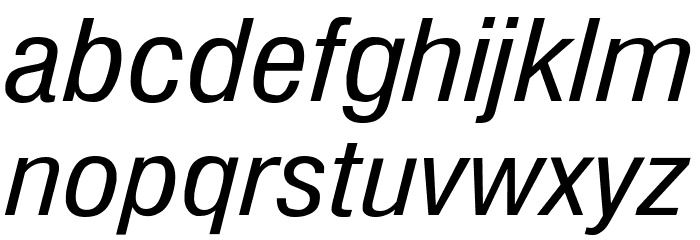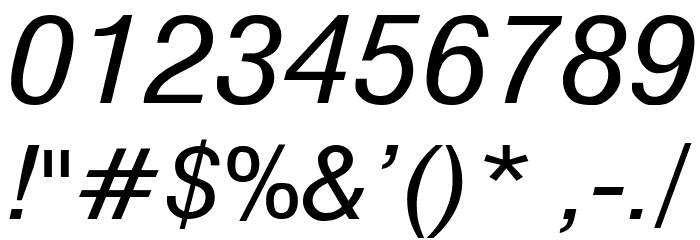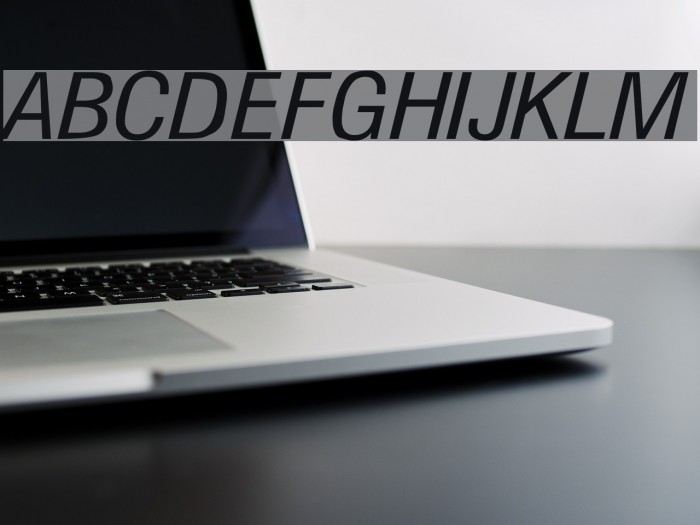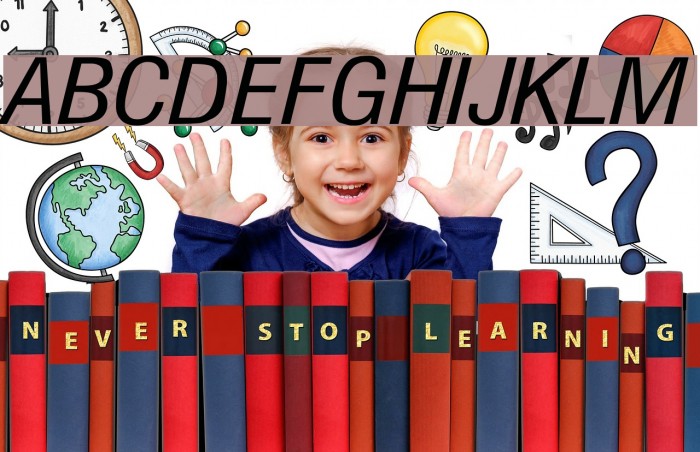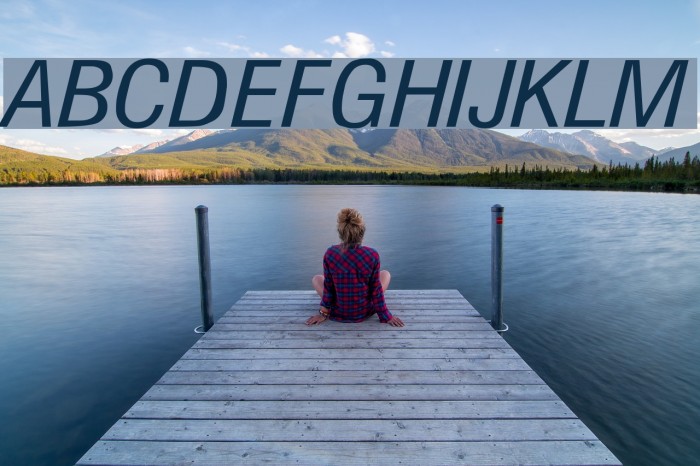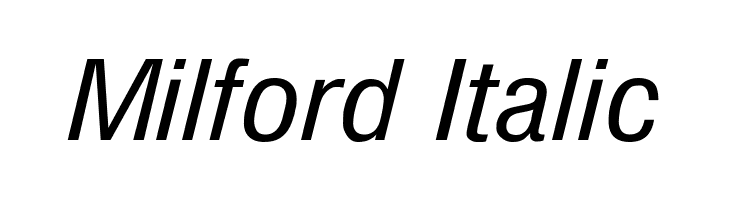
Milford Italic Font
This font features a sleek and modern italic style, characterized by its clean lines and smooth curves. The letters are slightly slanted, giving a sense of motion and elegance. The uppercase and lowercase letters maintain a consistent style, with a uniform stroke width that ensures readability. The numerals are clear and distinct, matching the overall aesthetic of the alphabet. Special characters are well-integrated, maintaining the font's cohesive look. This font's design is versatile, suitable for various applications where a contemporary and stylish appearance is desired.
A sleek, modern italic font with clean lines and smooth curves.
- Proposed Projects: Ideal for branding, advertising, and editorial design projects.